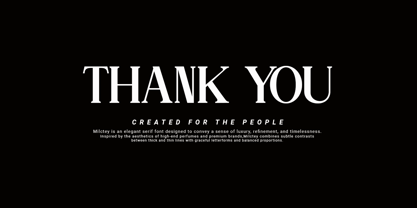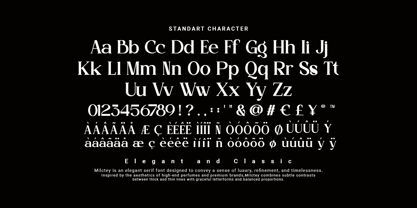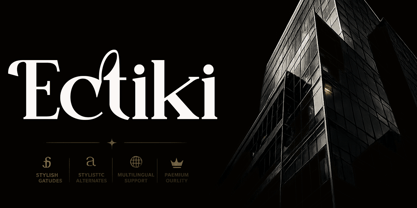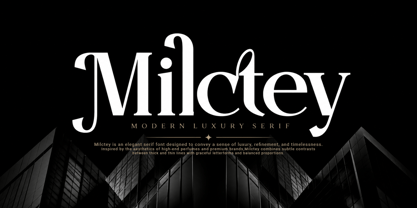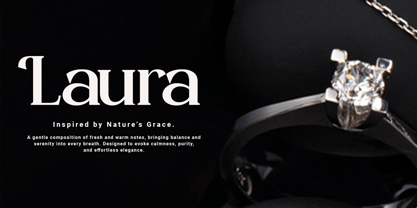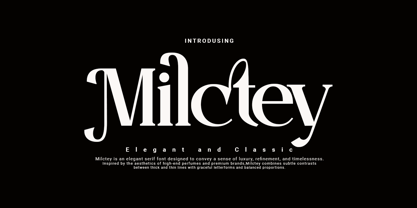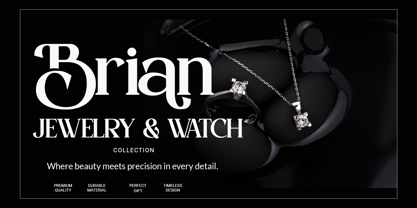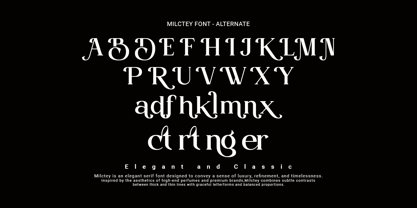
Milctey
by Agung Sudirman
The Milctey Font Family was designed by Agung Sudirman and published by Agung Sudirman. Milctey contains 2 styles and family package options. More about this family
Milctey is a modern luxury serif typeface that blends timeless elegance with contemporary sophistication through high-contrast letterforms, graceful curves, subtle ligatures, and distinctive stylistic alternates, making it an exceptional choice for premium branding, fashion editorials, luxury packaging, beauty products, wedding stationery, magazine titles, logos, invitations, and high-end visual identities where each character is designed to convey a sense of exclusivity, artistic refinement, and timeless style while maintaining excellent legibility and a striking presence in both print and digital media.